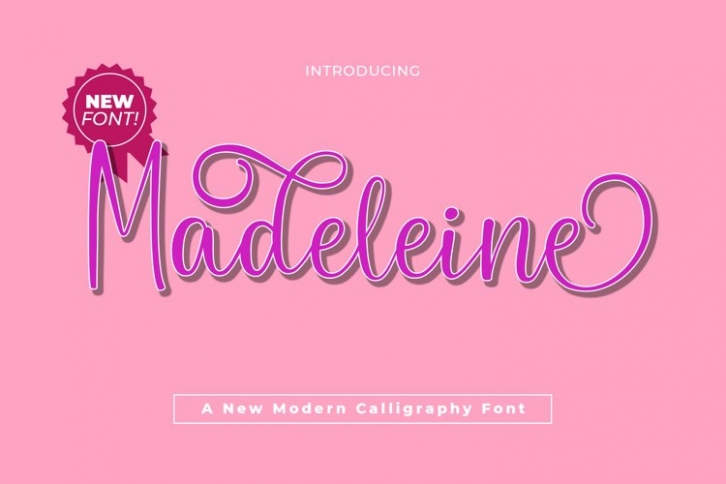
Madeleine is a gorgeous font that was realeased on July 17, 2022. The font can be used in many style contexts and design environments. Perfect for invitations, magazines, websites, logos, and more! It was designed by plusstore and the file size is 5.33 MB. Thanks for checking out this font!